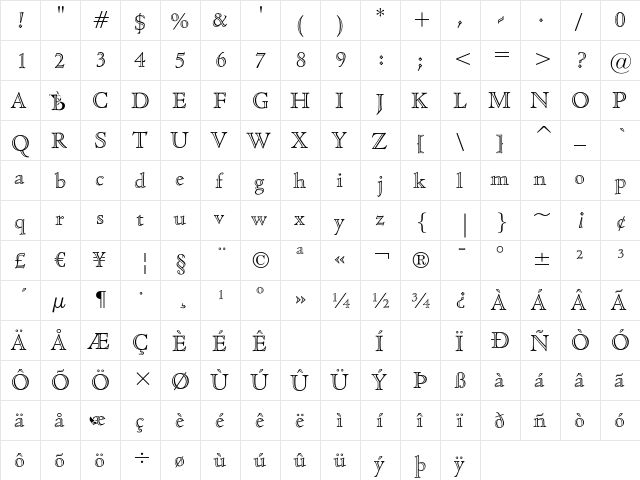
Cloister Open Face Regular
Design Context for Cloister Open Face Typeface
Cloister Open Face is a composed and adaptable typeface that performs quietly and consistently across a wide range of design contexts.